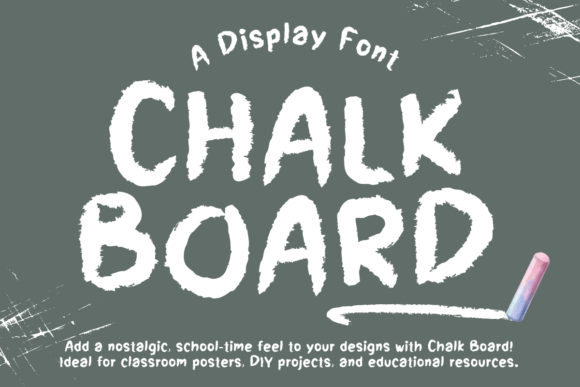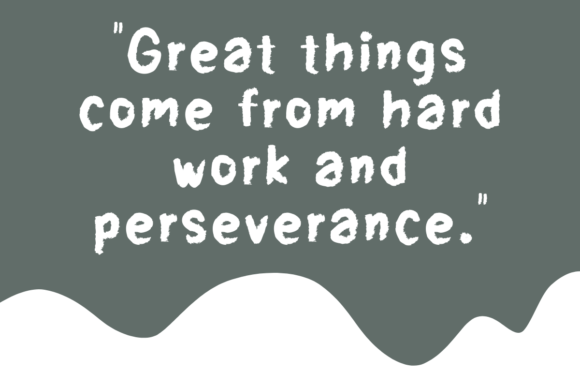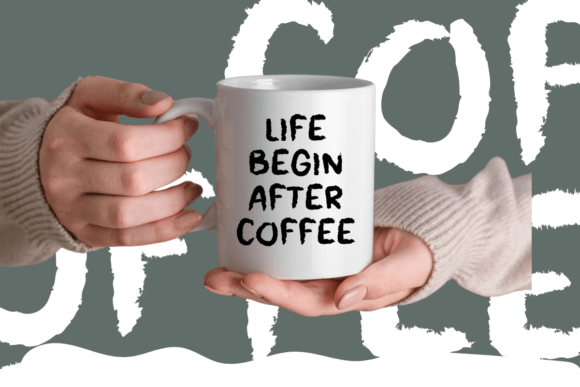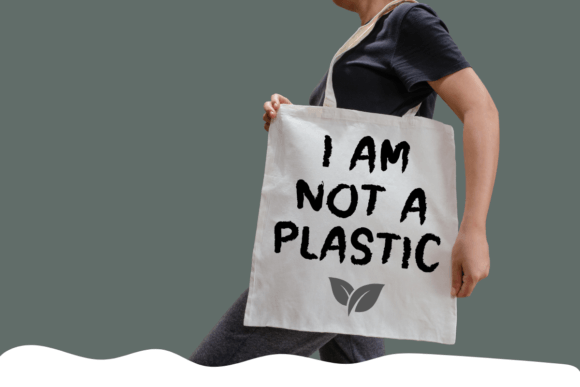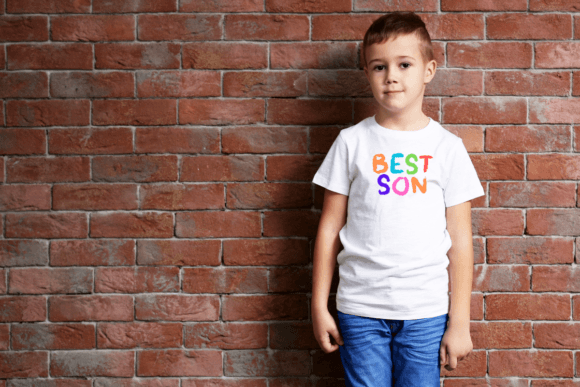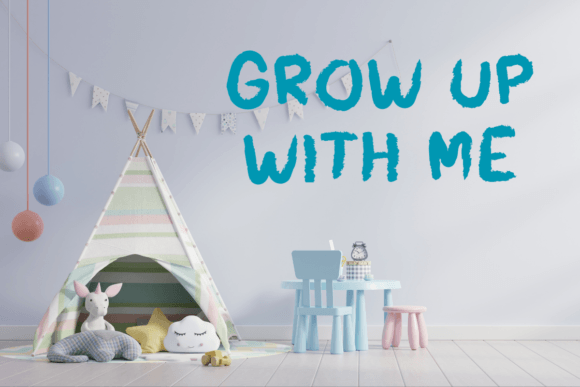
The Ultimate Writing Companion for Designers
Have you ever found yourself scribbling notes in a coffee shop, only to realize that the perfect font for your digital project has been hiding in plain sight? For designers and creatives, the quest for the perfect font is a never-ending journey. But what if I told you that there’s a font that’s been waiting patiently to be discovered?
Meet the Chalk Board Font, a bold Display handwritten font that’s perfect for digital note-taking. Its versatility makes it ideal for various projects, from Procreate designs to blog posts, logos, branding, and more. Whether you’re creating a digital planner, designing an invitation, or crafting a photo album, this font is sure to bring a touch of personality to your work.
Key Features of Chalk Board Font
- Unique Characteristics: This font features a distressed, hand-drawn look with subtle texture and imperfections, giving it a charming and nostalgic feel.
- Language Support: Chalk Board Font supports a wide range of languages, including Latin, Cyrillic, and Greek, making it a versatile choice for global applications.
Designer Review: Chalk Board Font
Overall, I think Chalk Board Font has a lot of potential, but it’s not without its limitations. Let’s dive in and explore what works well and what doesn’t.
- Unique and creative design: The Chalk Board Font has a quirky, hand-written feel that’s perfect for adding a touch of whimsy to your designs.
- Highly customizable: With a wide range of font sizes, colors, and effects, you can easily tailor the font to fit your brand’s style and aesthetic.
- Limited legibility: At smaller font sizes, the Chalk Board Font can become difficult to read, which may be a problem for longer blocks of text.
- Lack of consistency: Depending on the device and screen resolution, the font may not render consistently, which can affect its overall appearance.
- Not suitable for formal designs: Due to its casual, hand-written feel, the Chalk Board Font may not be the best choice for formal or professional designs.
Overall, I think the Chalk Board Font is a great addition to any designer’s toolkit, but it’s essential to use it thoughtfully and in the right context. With its unique design and high level of customization, it’s perfect for adding a touch of personality to your designs. Just be aware of its limitations and use it accordingly.
Chalk Board Font Practical Application Guide
Use the Chalk Board font for educational materials, such as lesson plans and worksheets. It’s also great for creating a playful and casual tone in marketing materials, such as flyers and social media posts. To get the most out of the Chalk Board font, experiment with different font sizes, colors, and textures to create a unique design.
Alternative Chalk Board Fonts for Designers
Fontin is a serif font that mimics the look of chalkboard writing. It is a great alternative to Chalk Board Font when you need a more elegant and refined look. Fontin is suitable for use in invitations, posters, and other print materials where a touch of sophistication is desired.
Compared to Chalk Board Font, Fontin is more polished and refined, making it a better choice for formal events or high-end branding.
Are there any variations of Chalk Board Font available?
Yes, there are several variations of Chalk Board Font available, including different styles, weights, and